The next step was to select several versions with potential, draw them in Illustrator and show a screen image to get client feedback and direction for style.
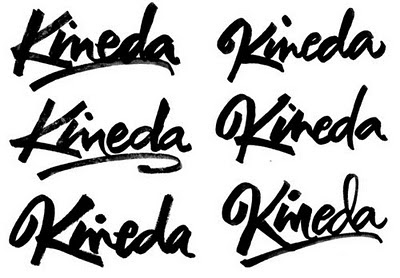
As the project progresses, the cap K was refined along with the lowercase letterforms. In all phases of the project I was fortunate to have open communication with Terry to fine tune all the details needed to create a unique logo.
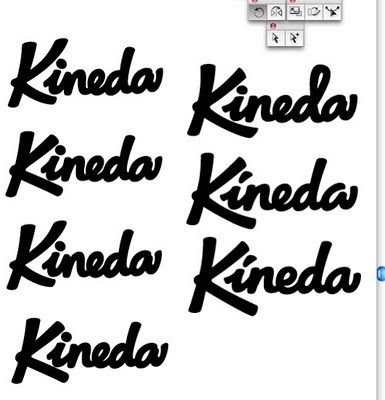
The final phase of the project was a screen image with the final logo at various sizes in both positive and negative format. Minor tweaks were made and the final art now resides on the Kineda website.